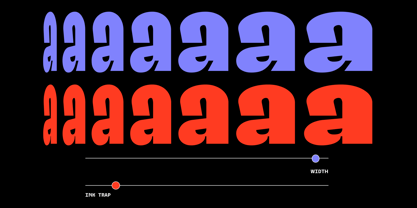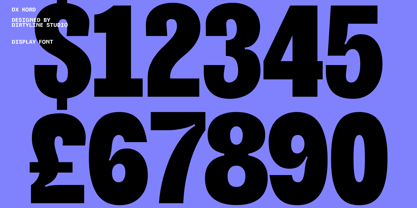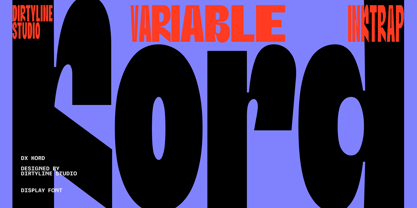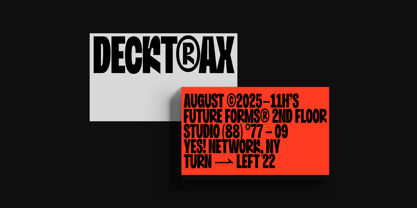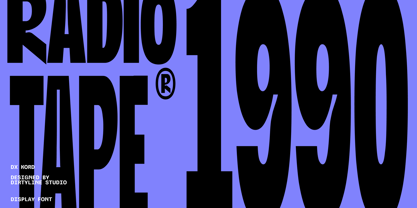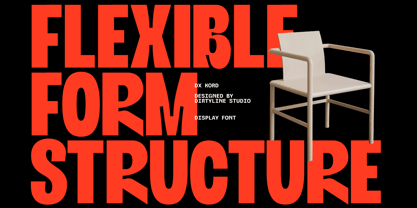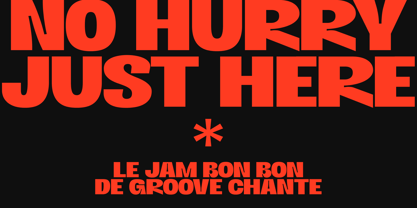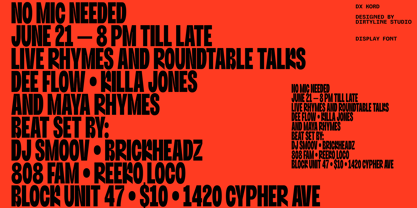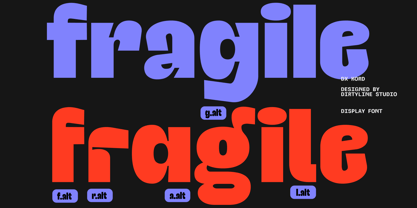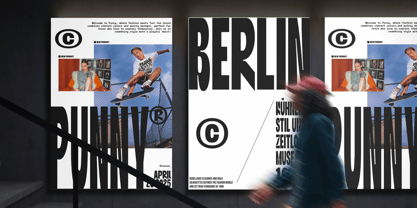
Dx Kord
by Dirtyline Studio
The Dx Kord Font Family was designed by Hendra Maulia and published by Dirtyline Studio. Dx Kord contains 19 styles and family package options. More about this family
DX Kord is a groundbreaking, modern sans-serif font that combines power, precision, and flexibility. Perfectly crafted for designers seeking versatility, DX Kord offers a dynamic, variable font experience with two customizable axes:
• Width Axis – From sleek Compressed to wide Expanded, control the letter spacing to make your design feel compact or expansive—ideal for headlines, logos, and impactful branding.
• Inktrap Axis – Choose between Regular and Inktrap styles for a sharp, modern aesthetic that adds character and precision to every curve and corner, making it stand out in print and digital applications alike.
Designed for those who demand versatility, DX Kord is a display font with the power to adapt to any creative vision. Whether you’re crafting eye-catching advertisements, logos, packaging, or digital assets, this font will elevate your design to the next level.
Designers: Hendra Maulia
Foundry: Dirtyline Studio
Dx Kord